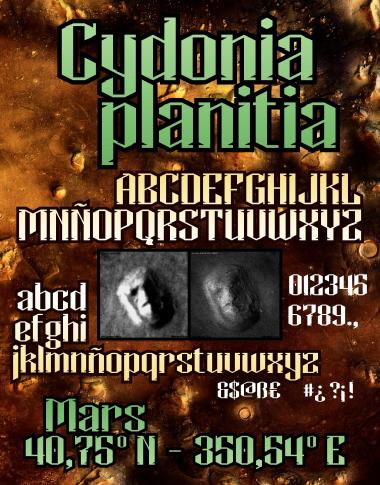
Clever use of serifs. Really nice work, great demo pic. 10/10
Awesome and so accurate!
And it looks great at pixel size.
You have hit the big time with this one. A very clean and distinctive fontstruct, with a full compliment of characters. Excellent work. 10/10
The serifs are inventive and give this font a very distinct character! 10/10
Your work just gets better all the time ... and this is excellent! Your sample really shows the inventiveness of the self-contained serifs. 10/10
@p2pnut: Thanks a lot, m..t.r! Really, I've trying put the serifs "inside" the glyphs... Glad you like it!
Nice glyphs, and clever use of serifs. 10/10